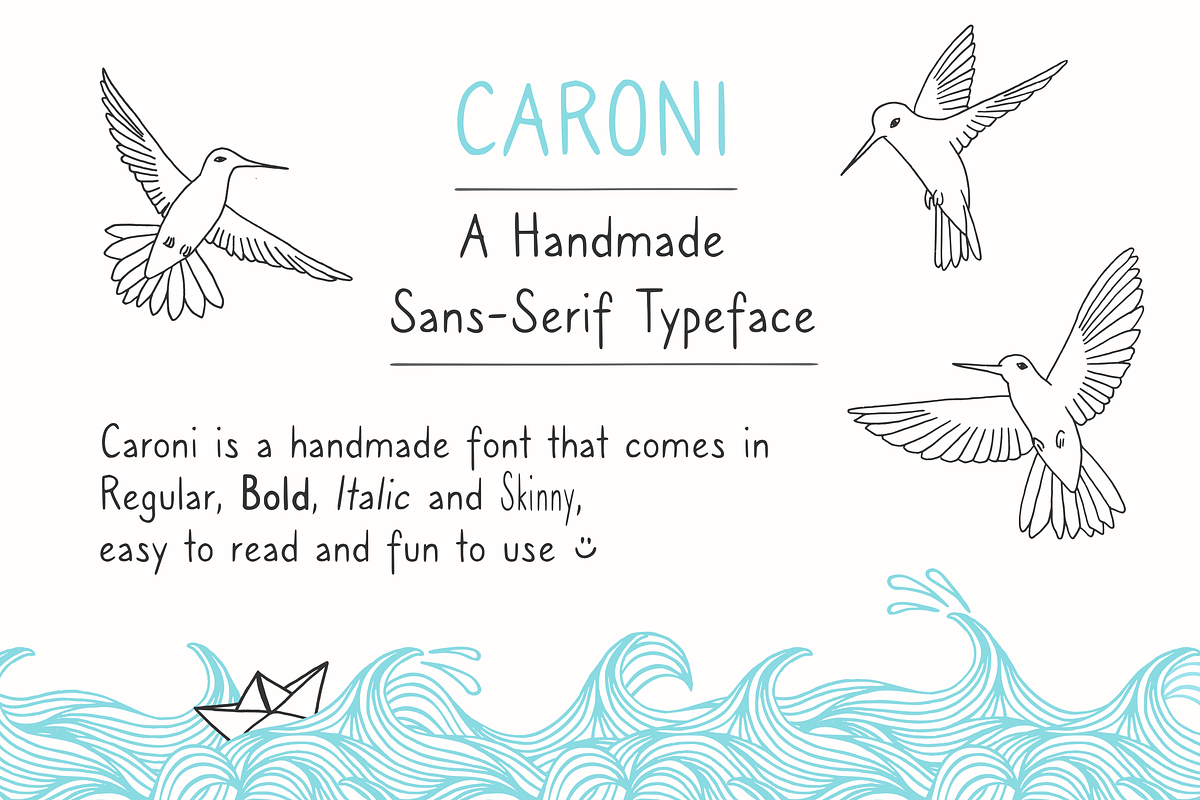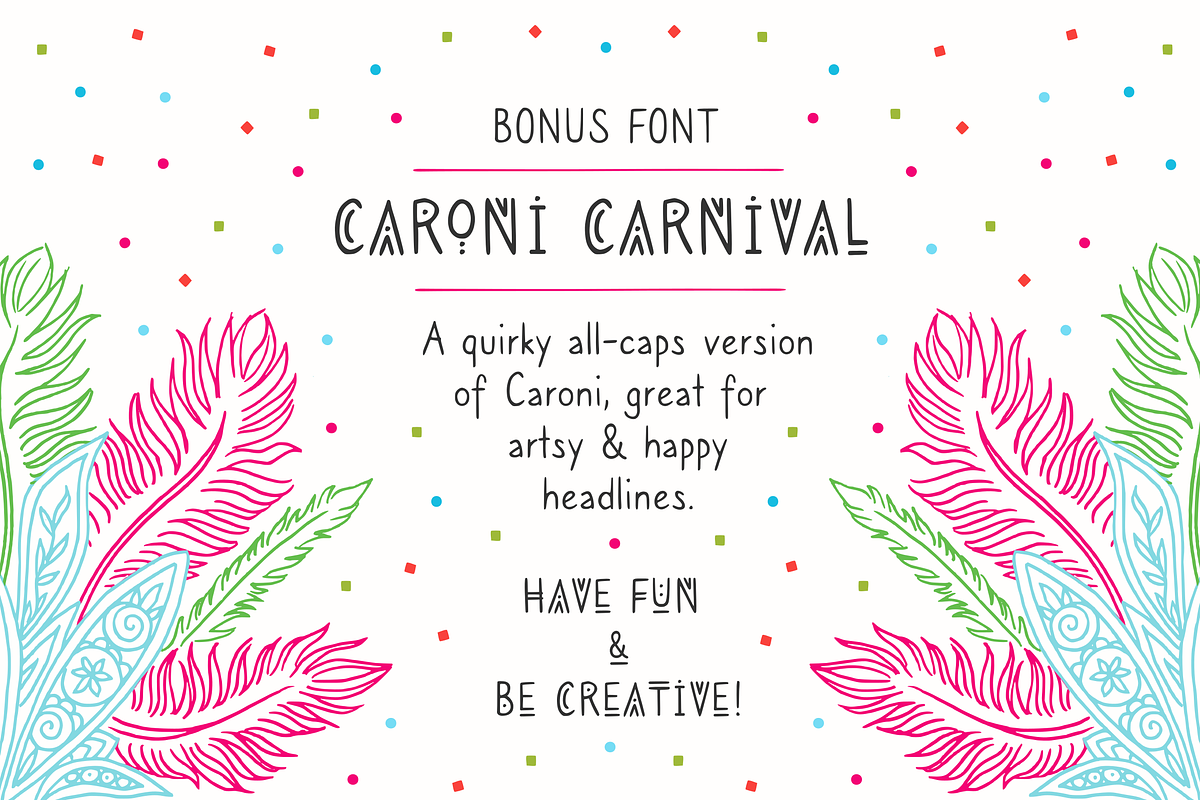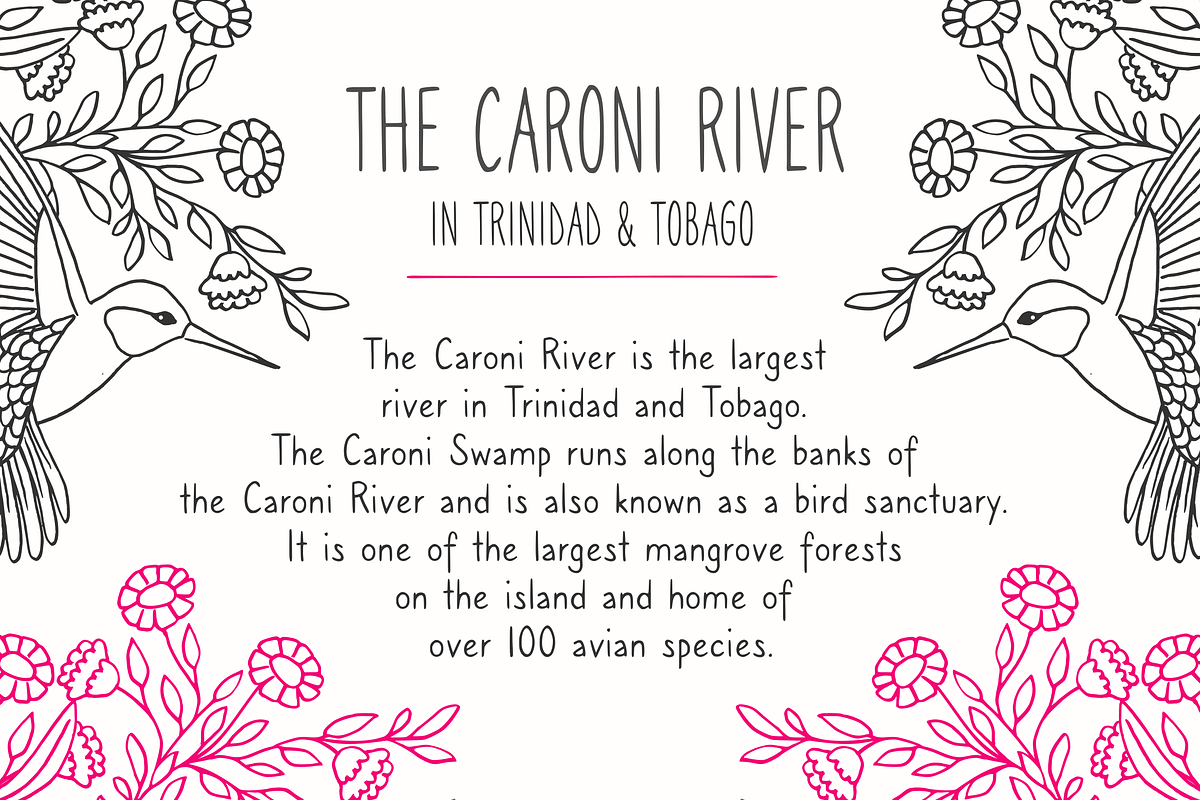
Caroni - A Handmade Typeface
Caroni is a handwritten font that was created for longer texts - it is therefore clean and easy to read, yet it'll give your projects that special, handmade touch. Of course you can also use it for headlines, business cards, product names etc.